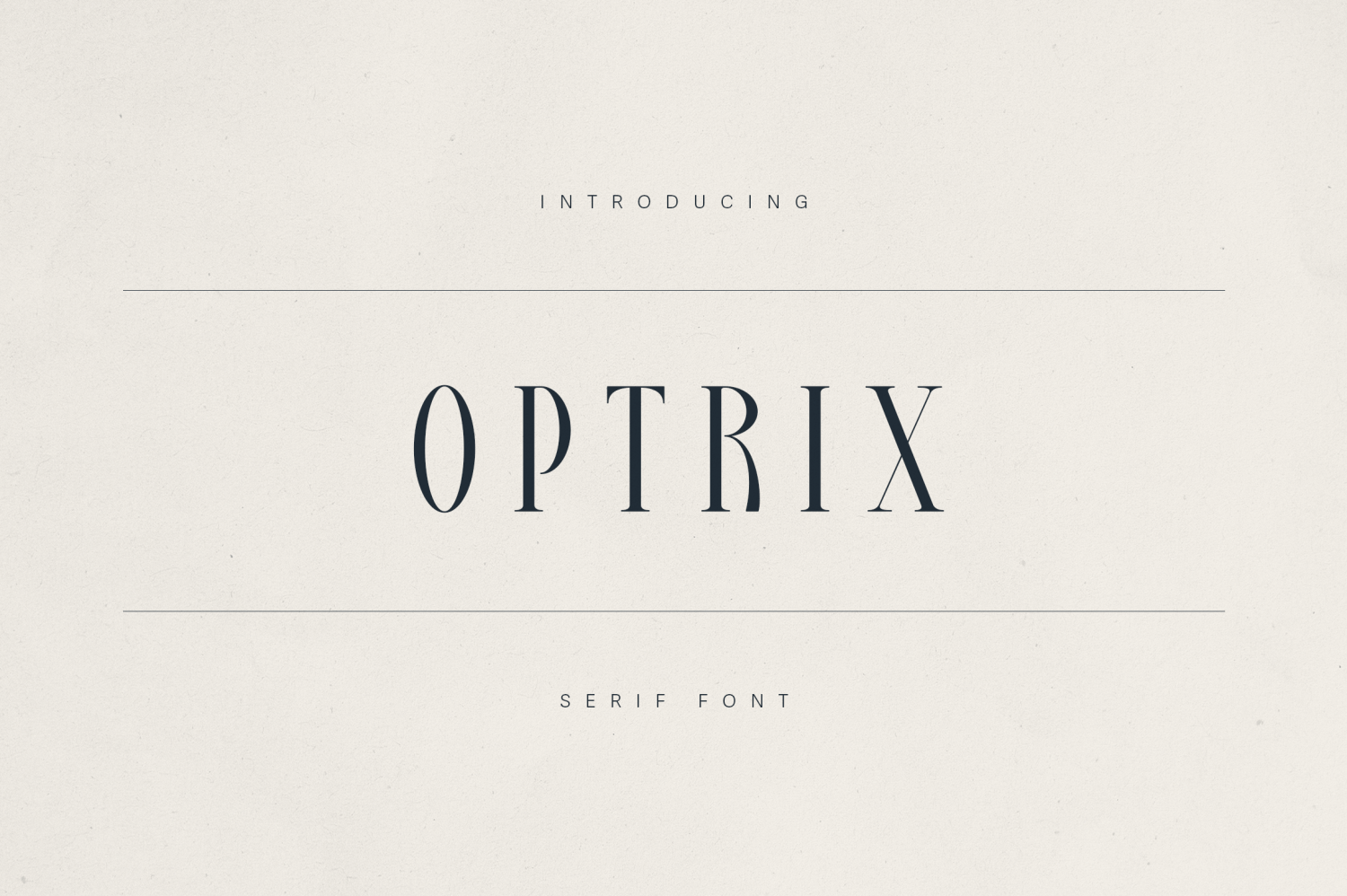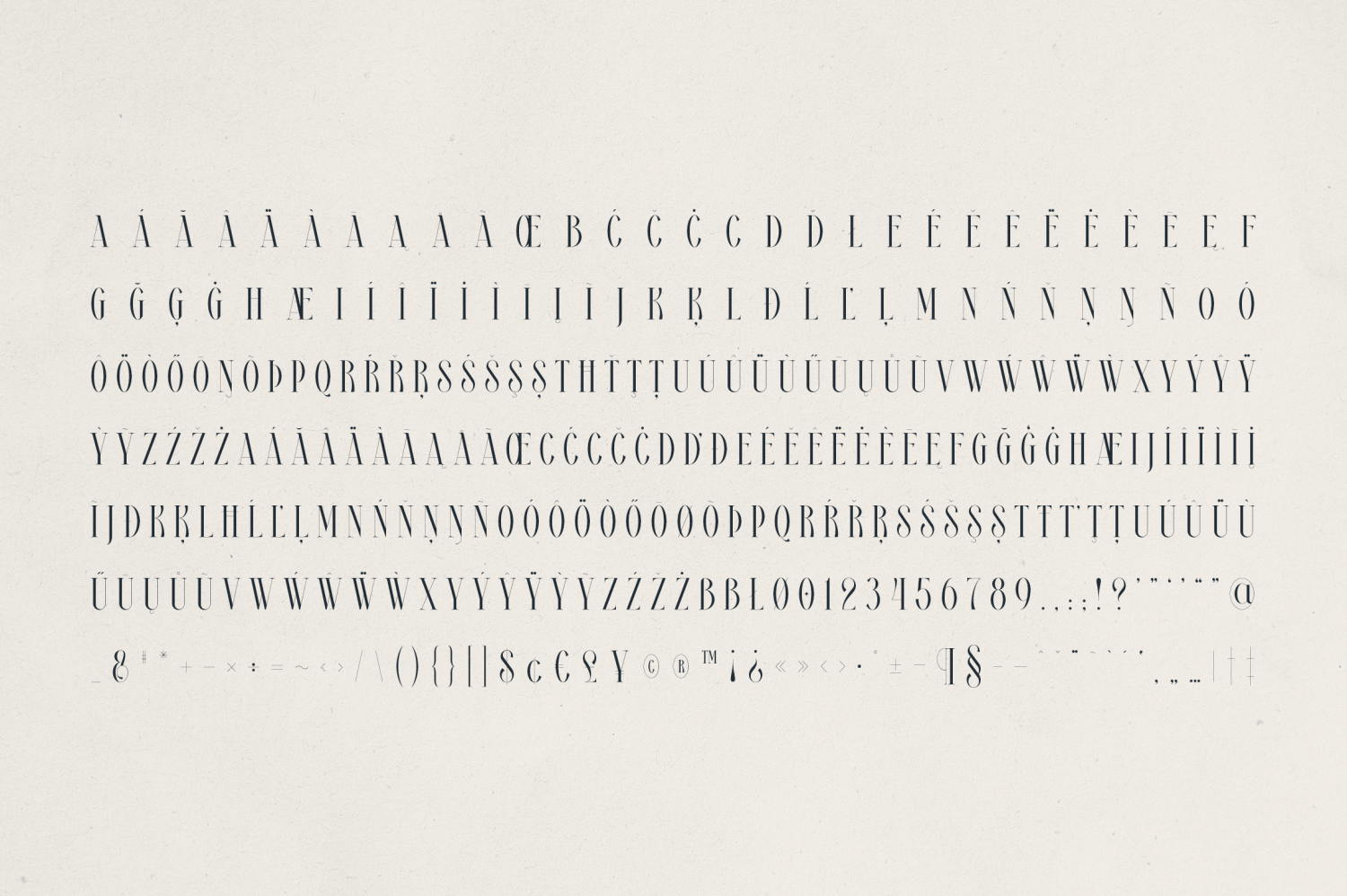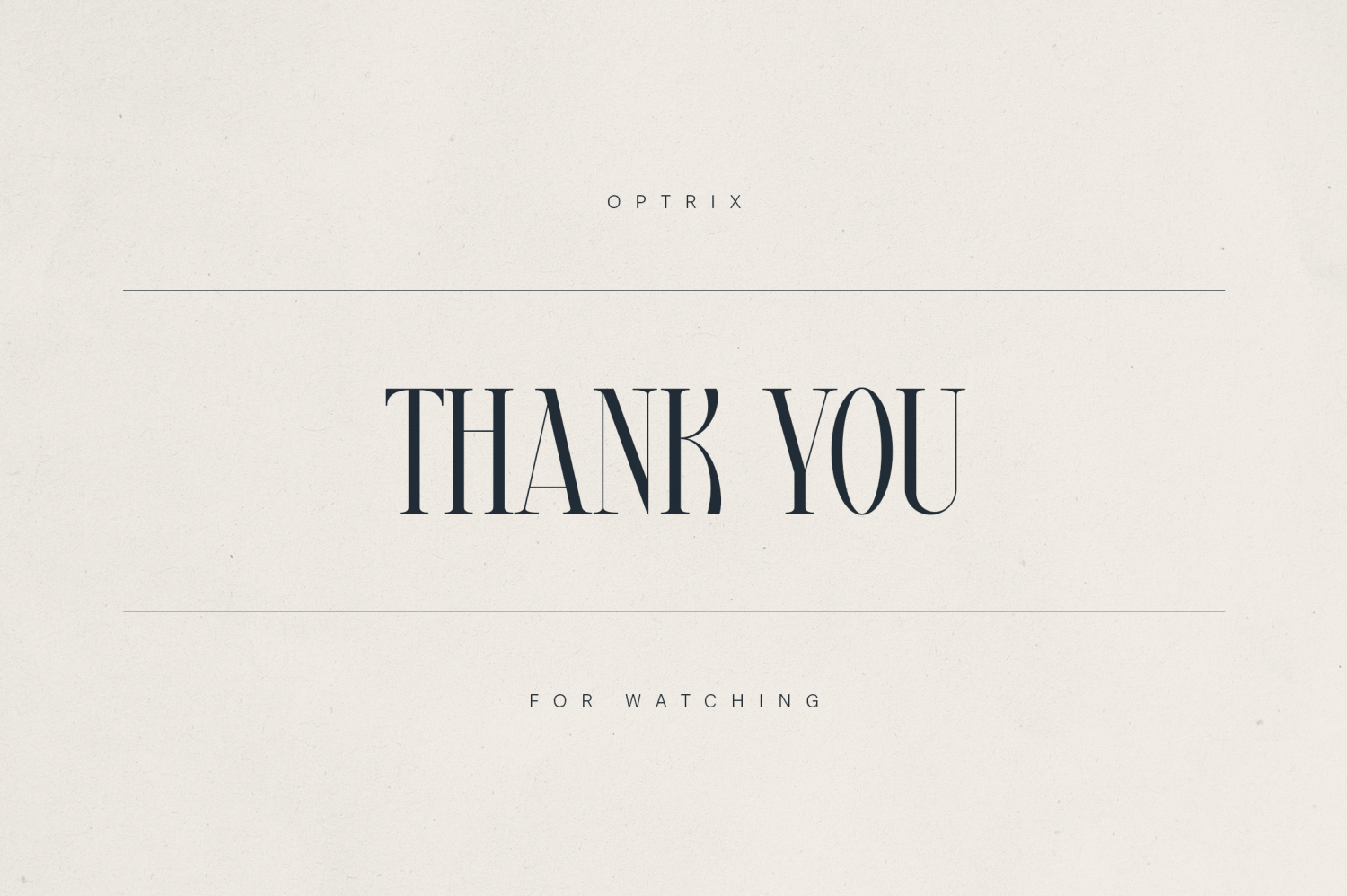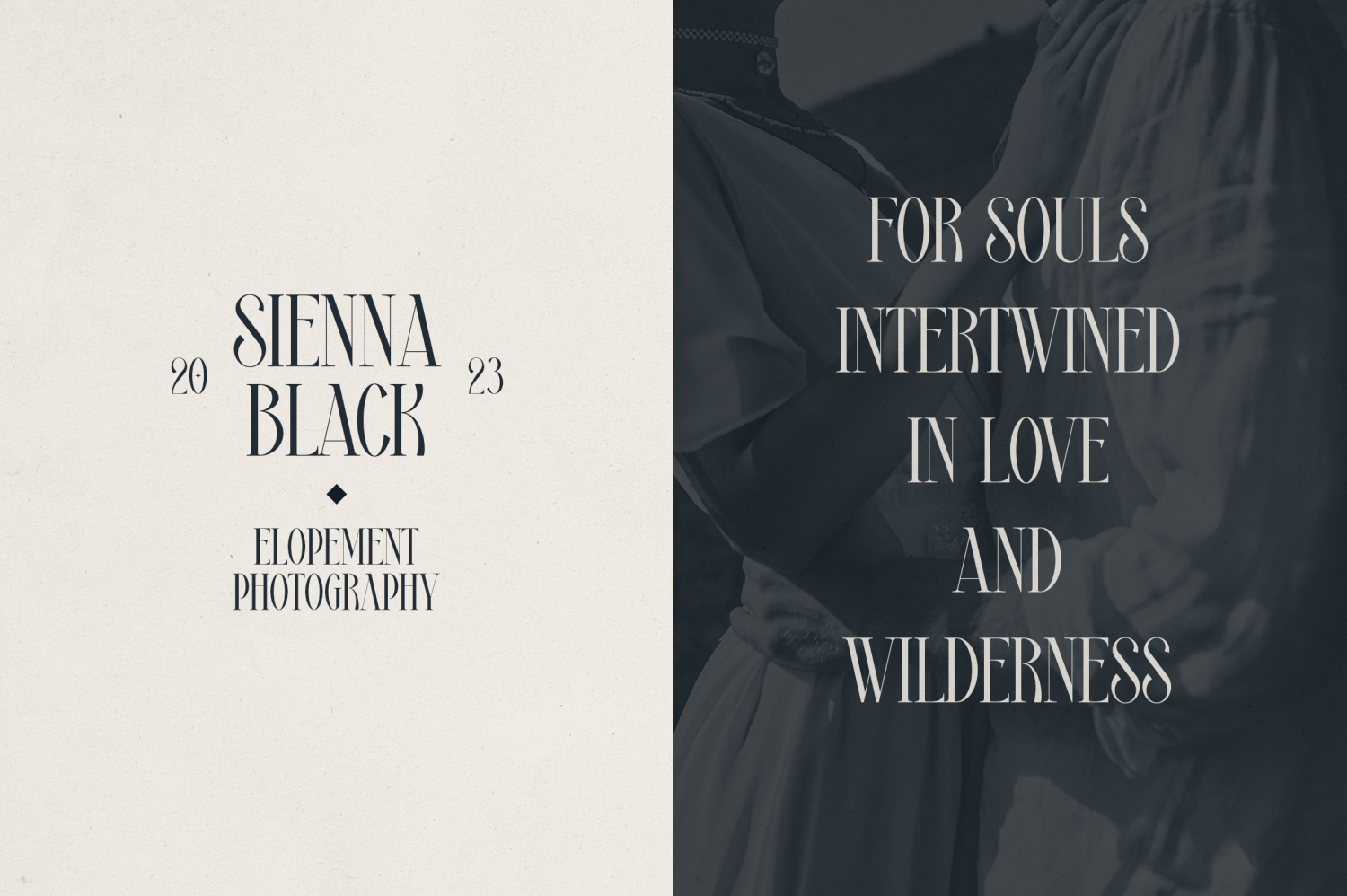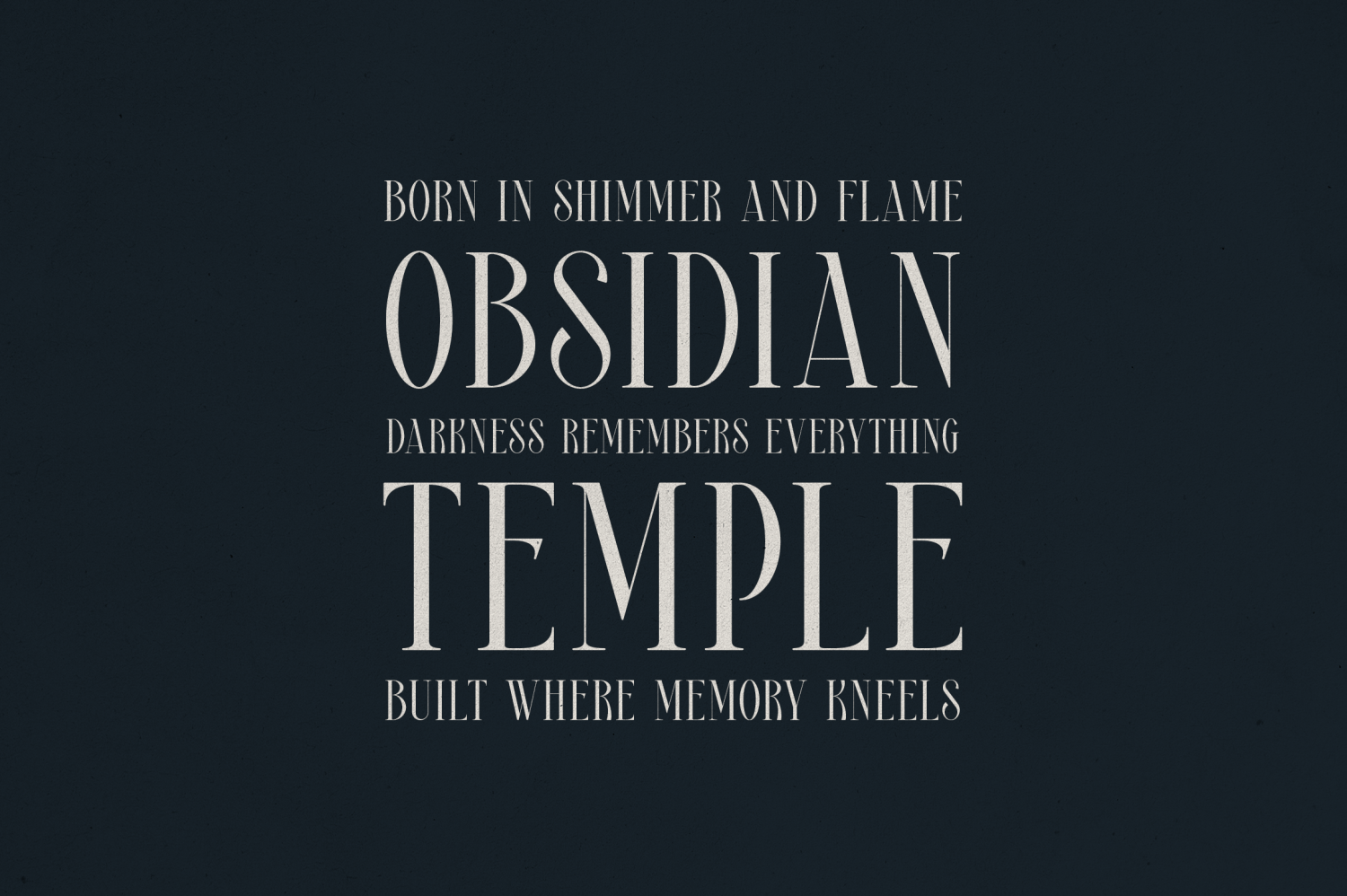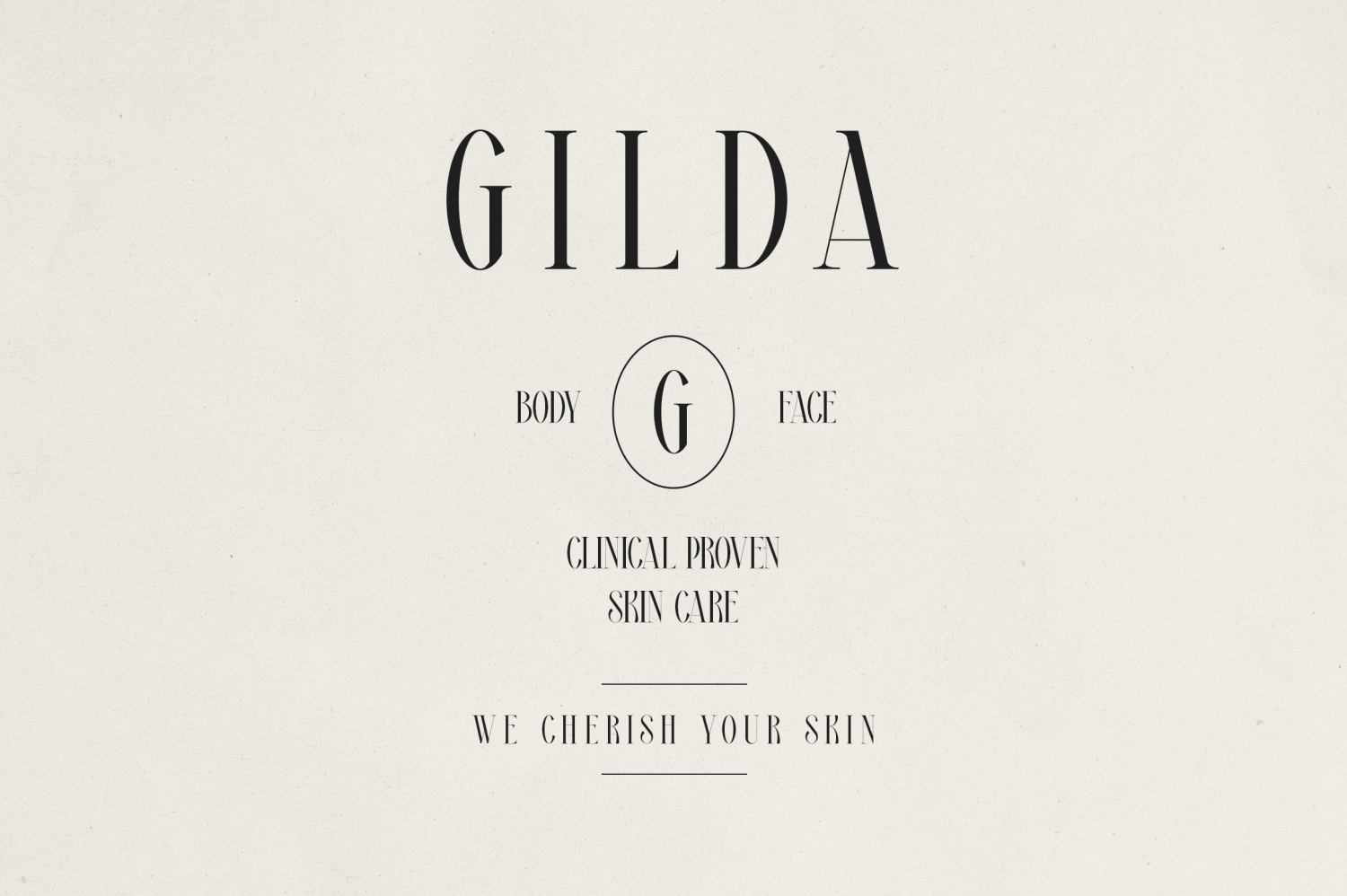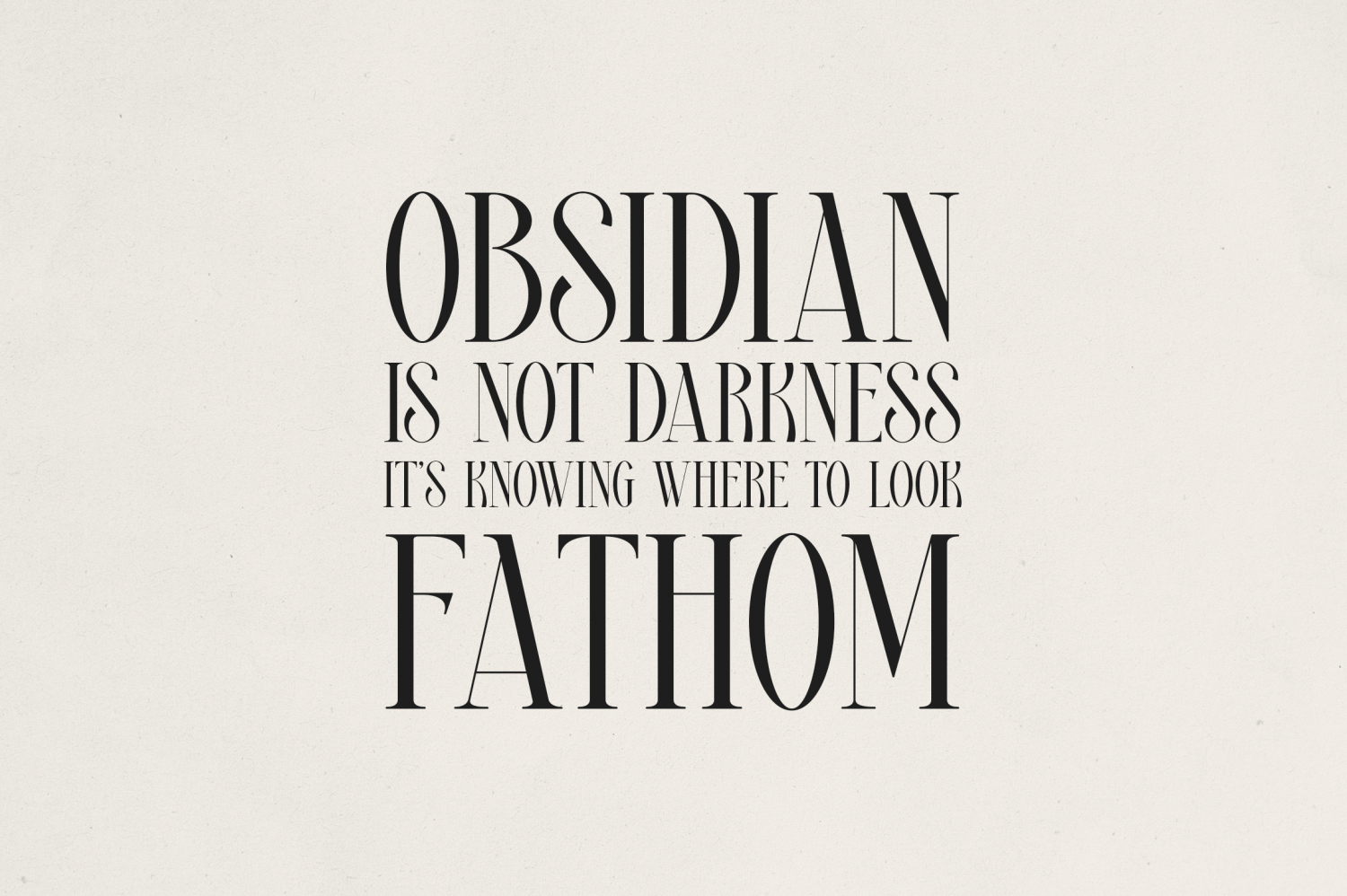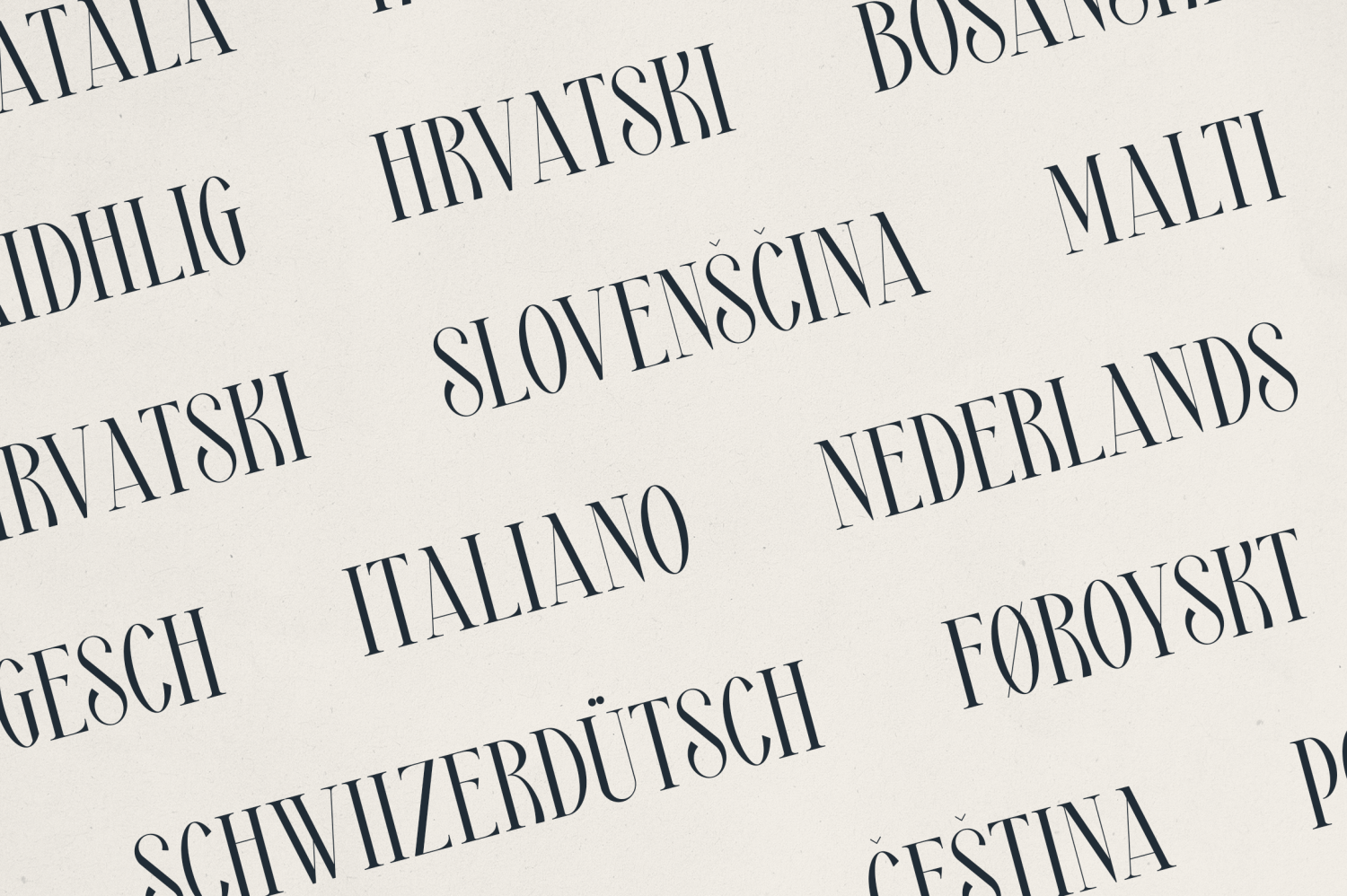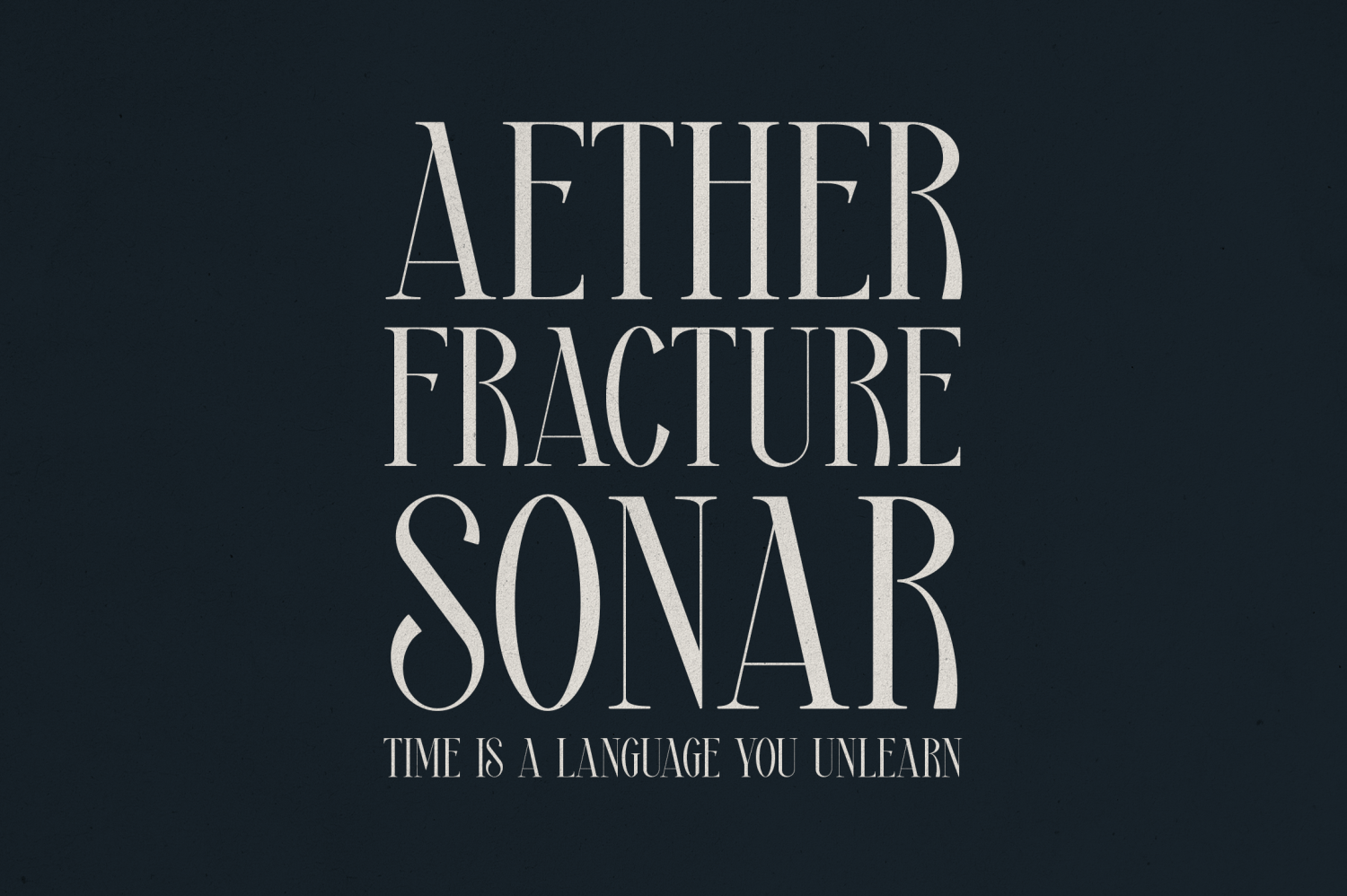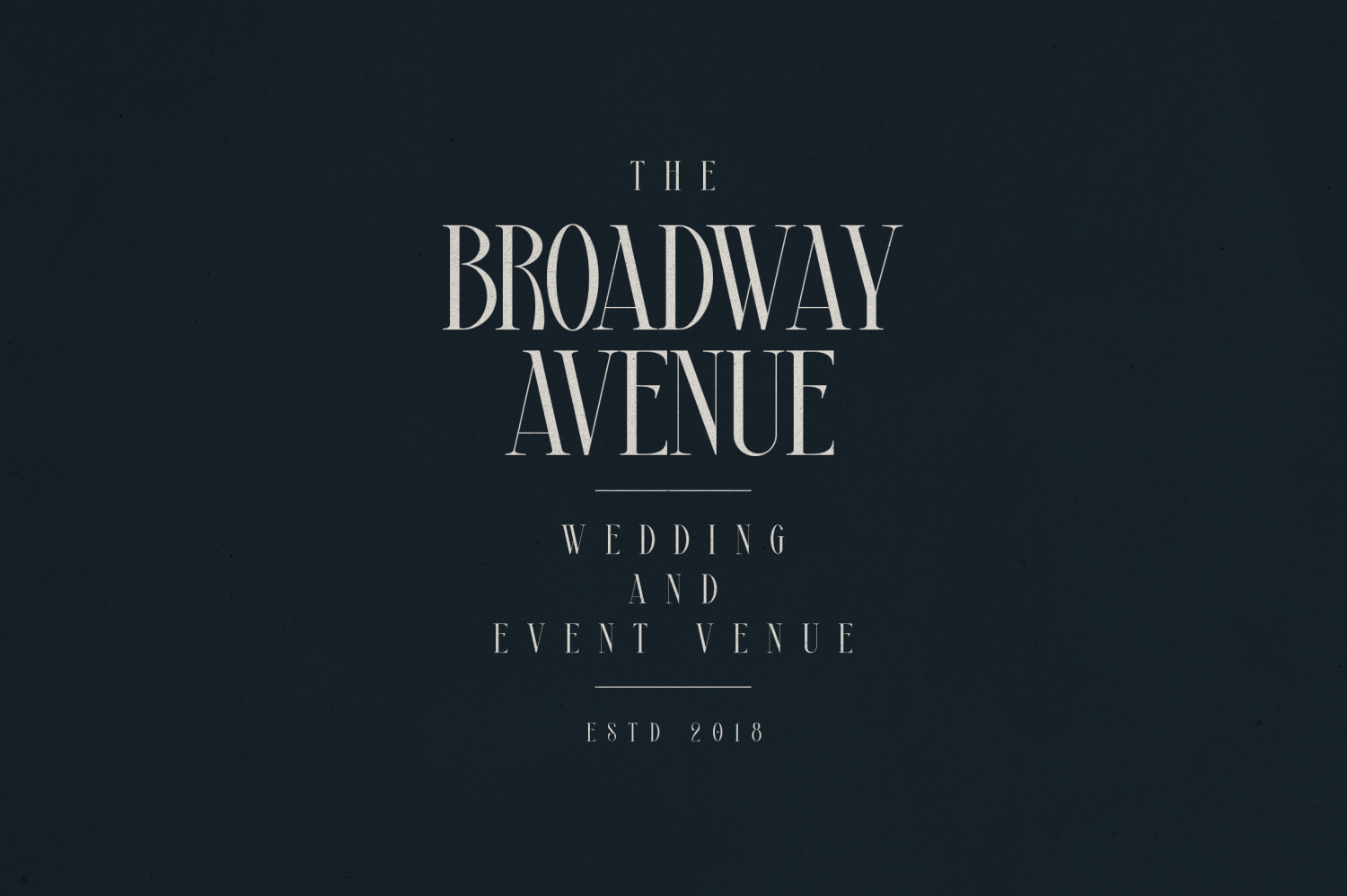
Optrix
Optrix is a refined serif typeface designed to bring sophistication and charm to your creative projects. With its high contrast strokes, elongated letterforms, and stylish curves, Optrix blends classic editorial flair with contemporary elegance—perfect for luxury branding, wedding stationery, high-end packaging, editorial design, and boutique visual identities.
Crafted for designers seeking a balance of drama and readability, Optrix thrives in headlines, logos, and display text where elegance meets personality. Each character is thoughtfully designed to evoke emotion while maintaining a strong and confident presence.
Ideal For:
- Wedding invitations & elopement photography branding
- Skincare & beauty product packaging
- Fashion labels and boutique logos
- Editorial layouts & artistic storytelling
- Event venues and lifestyle branding
Font Features:
- Sophisticated serif design
- Tall, narrow proportions for high visual impact
- Supports multilingual characters
Optrix offers timeless charm with a modern twist—an essential addition to any designer’s font library.